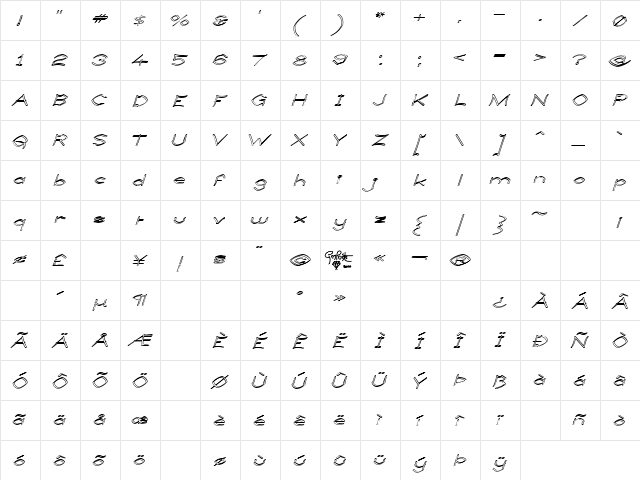
Llynfyrch Fwyrrdynn Ouline Regular
Design Context for Llynfyrch Fwyrrdynn Ouline Typeface
Llynfyrch Fwyrrdynn Ouline is a composed and adaptable typeface that performs quietly and consistently across a wide range of design contexts.